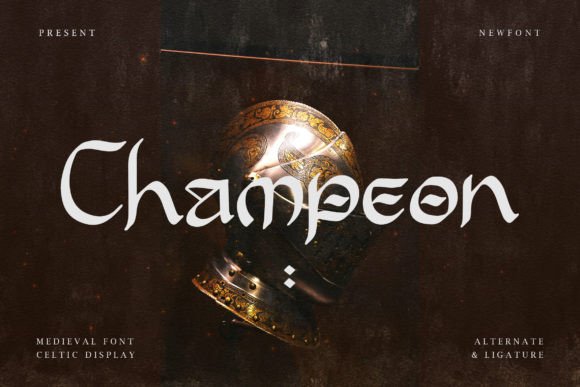
Journey to the past with the enthralling Champeon Font, a captivating display font that transports you to a bygone era of medieval elegance. Unleash your creativity and embark on a historical adventure with this stunning font, meticulously crafted by the renowned TypeFactory.
Immerse your projects in an aura of grandeur and majesty with Champeon Font, a font that echoes the grandeur of medieval manuscripts. Its distinct medieval Gothic-looking letter type adds a touch of intrigue and mystery to your designs, making them stand out from the ordinary.
Let the Champeon Font ignite your imagination and transport you to an era of knights, castles, and epic quests. It's the perfect companion for your historical-themed projects, whether you're crafting invitations for a medieval-inspired gathering or designing posters for a historical play.
Elegance and sophistication abound with Champeon Font. Its clean and legible letterforms ensure readability, while its decorative elements add a touch of visual interest. Use it for headings, logos, posters, or any other design element where you want to convey a sense of history and grandeur.
With the Champeon Font, you'll have a font that captivates and inspires. Its unique medieval charm adds depth and character to your designs, making them truly unforgettable. Download the Champeon Font today and embark on a journey through time with your creations.